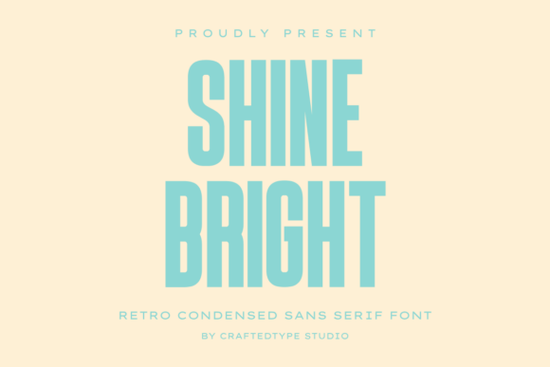
If you're looking for a retro-inspired sans serif font that works as well on a t-shirt print as it does in a Cricut project or a summer event poster, Shine Bright Font is worth your attention. It’s not overly decorative or hard to read instead, it strikes a practical balance: tall and narrow for impact, smooth and geometric for clarity, and carefully spaced for legibility at any size. Whether you’re designing for Print on Demand, making custom vinyl decals, or building brand assets for a small business, this font delivers consistent results without extra tweaking.
What makes Shine Bright Font easy to use?
It’s also optimized for cutting machines. The outlines are clean and closed, with no stray points or overlapping paths a real time-saver if you’ve ever wrestled with a jagged “S” or misaligned “R” in Silhouette Studio or Cricut Design Space. You’ll get crisp, reliable cuts straight out of the box.
Where does it fit best?
Think about projects where boldness matters but readability can’t be sacrificed: vintage-style band tees, café mugs with short slogans, festival posters, sticker sheets for planners, or even minimalist logo lockups for local shops. Its condensed proportions let you fit more into tight spaces like the curved surface of a water bottle or the narrow collar tag of a hoodie without shrinking the text until it’s illegible.
It’s especially handy alongside other retro-leaning fonts. For example, if you’re layering type in a layout, you might pair Rotation Font for subheadings (its subtle slant adds motion), or go for contrast with the grounded weight of Boston Font in body copy. For a slightly warmer, friendlier alternative, Matters Font offers similar structure but with softer terminals great for lifestyle brands. And if your design leans more editorial or needs typographic contrast, the sturdy serifs in Campus Font hold up well next to Shine Bright’s clean lines.
How does it compare to other retro sans serifs?
Unlike some condensed fonts that sacrifice spacing for narrowness, Shine Bright keeps generous side bearings so letters don’t crowd each other, even at small sizes. Its x-height is tall enough for strong visibility on fabric or sublimated mugs, but the cap height stays proportional, avoiding that “shouted” look some retro fonts fall into.
It’s not trying to mimic one specific era there’s no heavy 70s flange or 50s radio-dial quirk. Instead, it pulls from mid-century architectural lettering: think signage from old train stations or department store marquees. That gives it quiet versatility. You can use it seriously for a boutique coffee brand or playfully for a kids’ summer camp flyer same font, different context.
Who’s using it successfully?
Small POD sellers report strong performance on Etsy and Redbubble with designs built around short phrases “Sunrise Crew”, “Stay Wild”, “Good Vibes Only” because the font’s energy reads instantly, even as a thumbnail. Crafters appreciate how smoothly it imports into Cricut Access and cuts cleanly on iron-on vinyl. Local businesses (think bakeries, florists, record shops) use it for window decals and weekly menu boards it holds up well when scaled large on glass or printed small on takeout bags.
One thing to keep in mind: while it’s bold and eye-catching, it’s not meant for long paragraphs. Stick to headlines, logos, labels, and short callouts. For extended text, pair it with something more relaxed like Matters Font or a simple sans like Inter or Open Sans.
- ❌ You’re looking for a script, handwritten, or serif-heavy option (this is strictly a geometric sans)